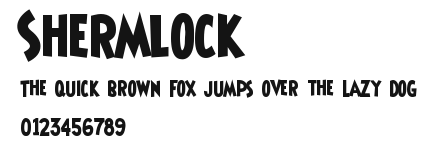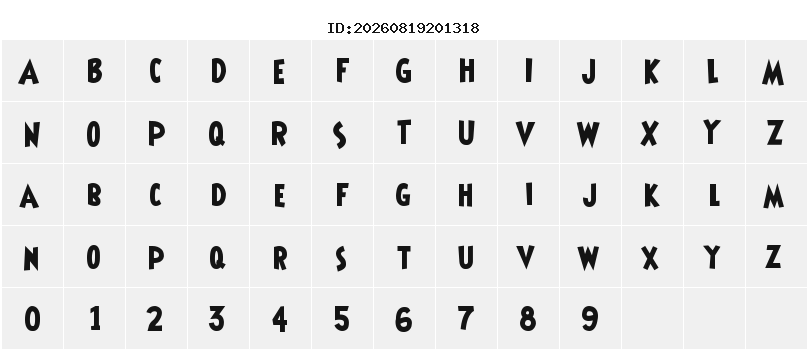
• Font Name: Shermlock
• Full Font Name: Shermlock
• Copyright: Shermlock by J.F.Y.Daniel Gauthier ‐ GautFonts
About Shermlock.ttf
Shermlock.ttf is a modern, elegant sans-serif font designed for ultimate readability and visual harmony. Perfect for branding, headlines, web design, and print materials.